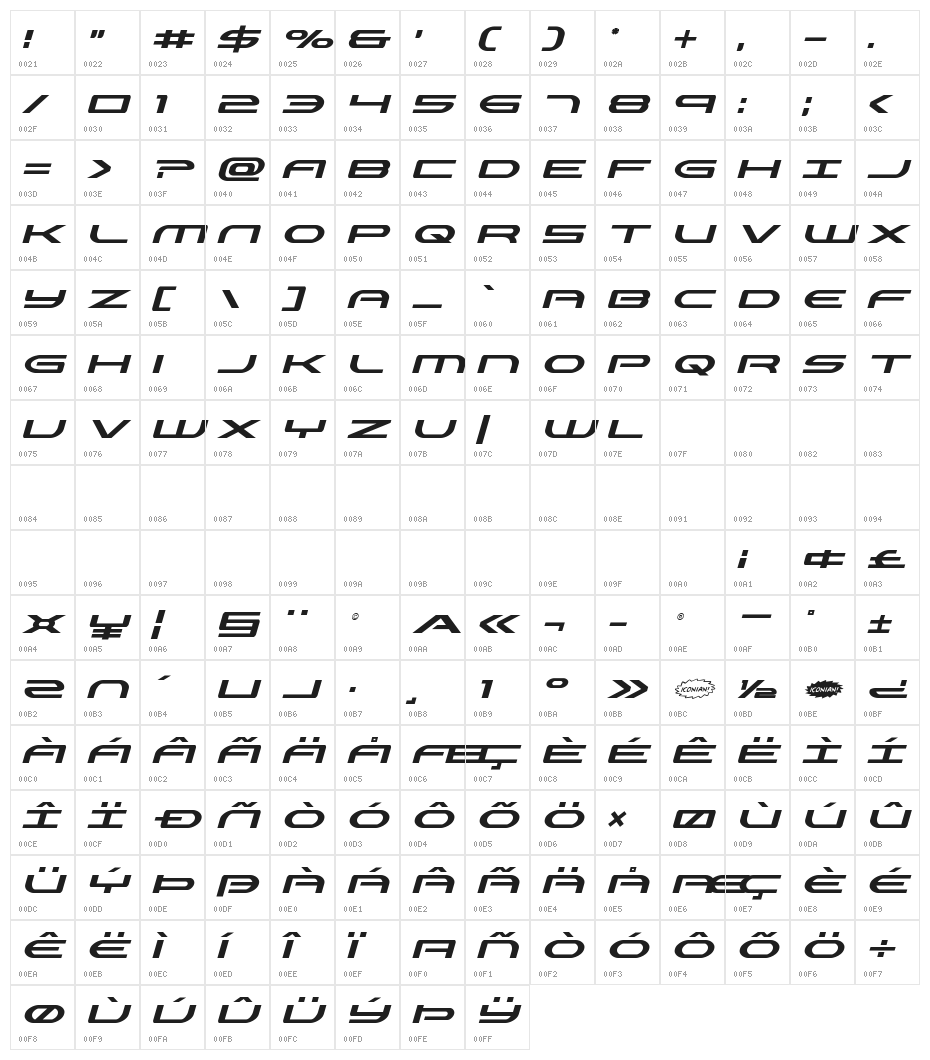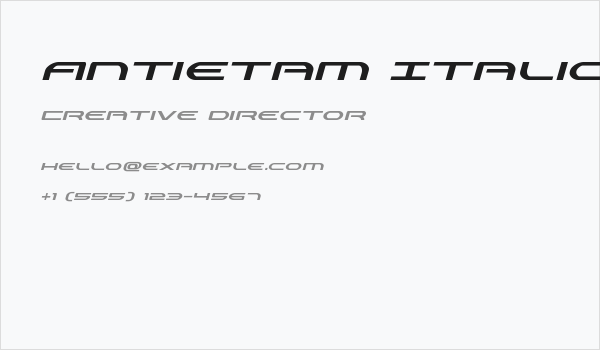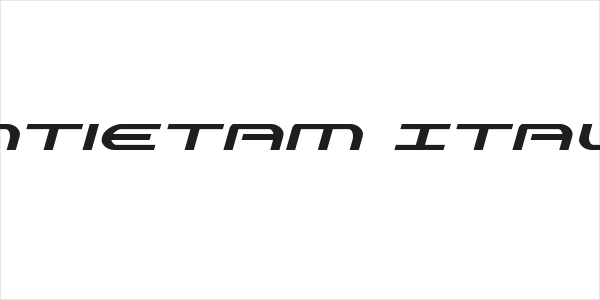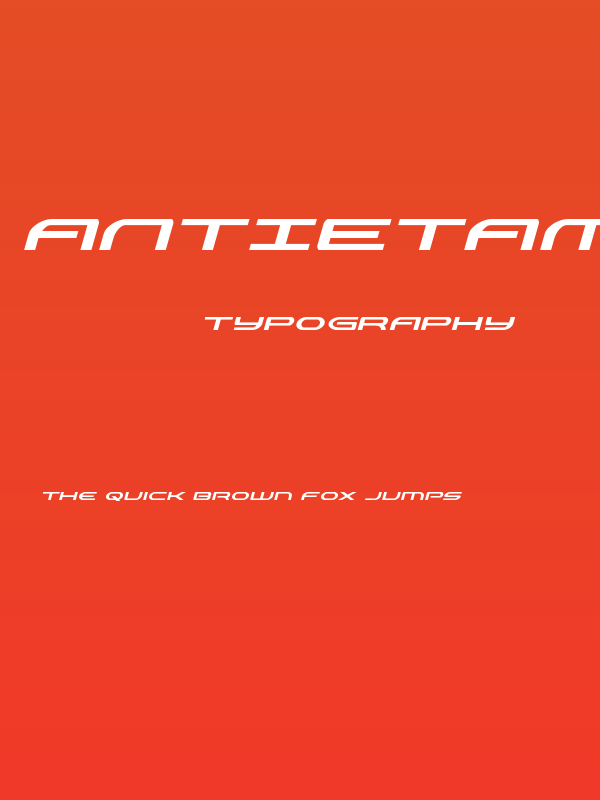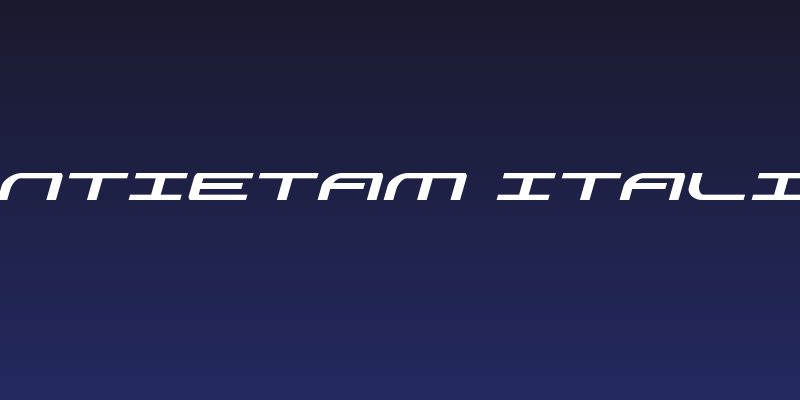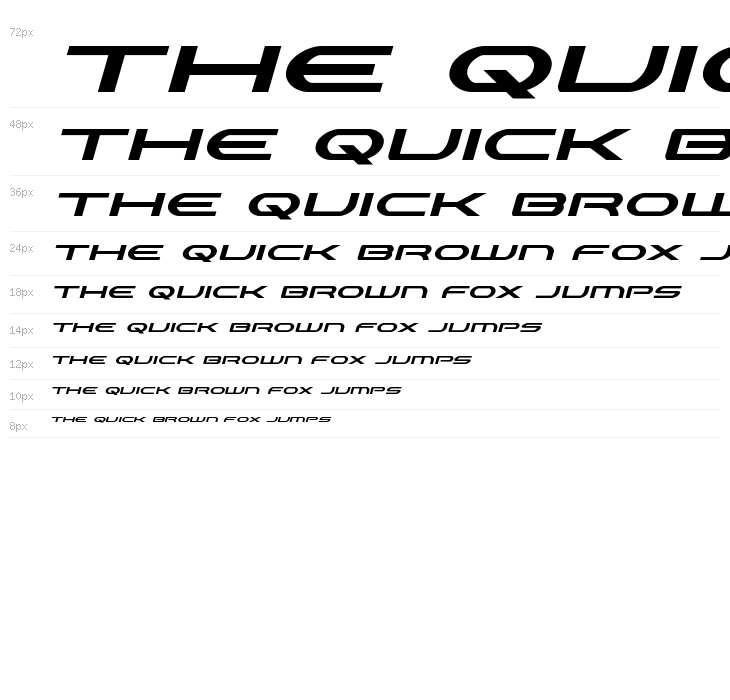
Antietam Italic Font
Antietam Italic Description
This font features a sleek, italicized design with a futuristic and aerodynamic feel. The characters are slightly slanted, giving a sense of motion and speed. The strokes are uniform in thickness, providing a clean and modern appearance. The uppercase and lowercase letters maintain a consistent style, with rounded edges and smooth curves. The numerals and special characters are designed to match the overall aesthetic, ensuring a cohesive look across all text. This font is ideal for projects that require a dynamic and contemporary touch.
| Proposed Projects | Ideal for technology branding, automotive advertisements, and modern web design. |